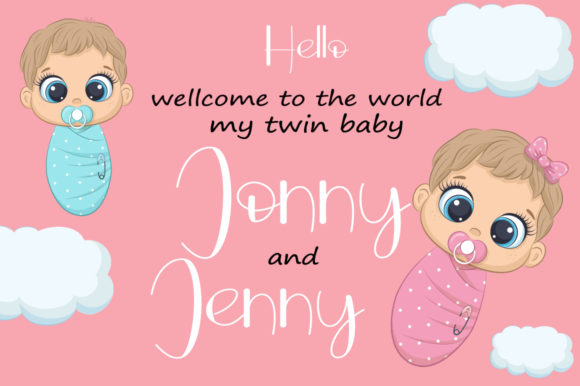
Lovely Lailla Font
db-ku.com - Script & Handwritten -- Lovely Lailla simplifies elegance into one truly outstanding handwritten font. This font is the perfect fit for all of your logos, branding, social media, and crafty DIY projects.